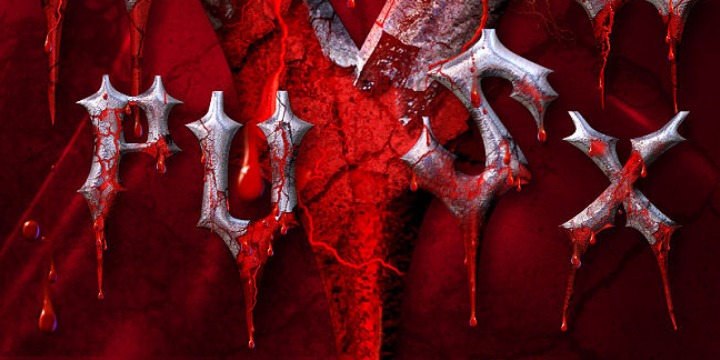
Passo Borgo
by Intellecta Design
The Passo Borgo Font Family was designed by Iza W and published by Intellecta Design. Passo Borgo contains 6 styles and family package options. More about this family
Passo Borgo is a blackletter typeface inspired on classic vampire filmes from 50"s and in Dracula's Bram Stoker novel... creepy...
Designers: Iza W
Foundry: Intellecta Design